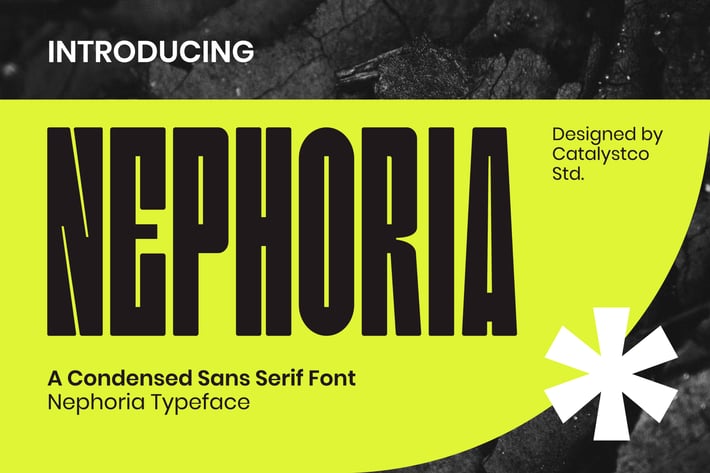
Nephoria Condensed Sans Serif Font
Nephoria Condensed Sans Serif Font typeface excellent used for the manufacture quote text, logotype, header magazine, and many more.
Main Features
Ligatures & Alternate
Numeral & Punctuations